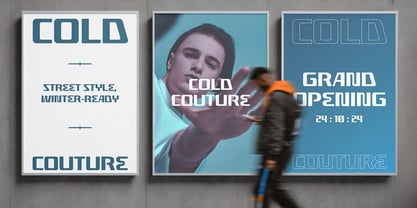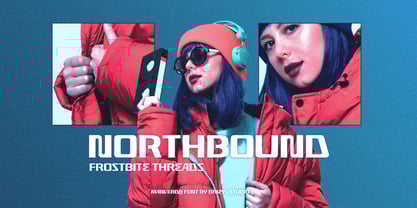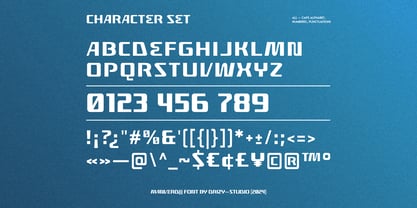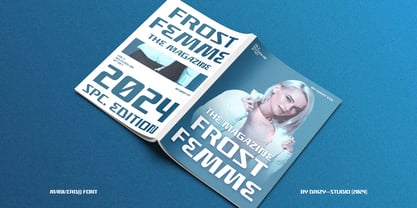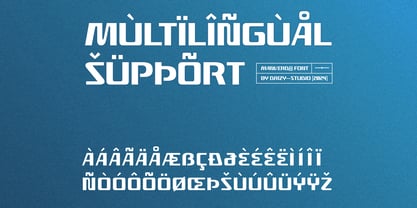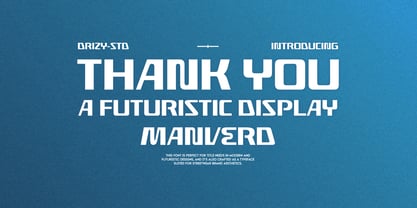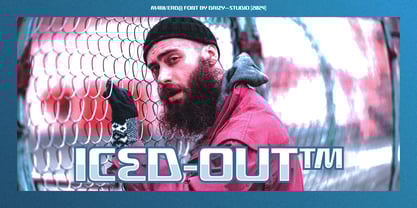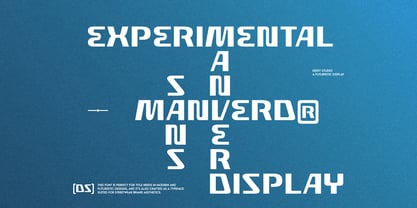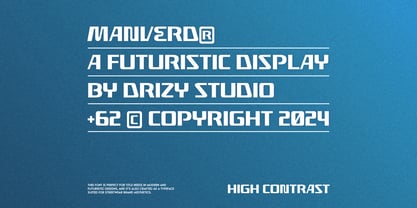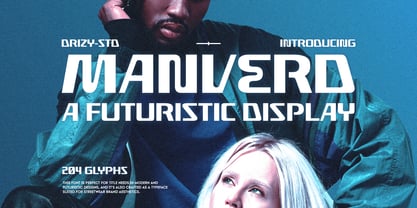
Manverd
by Drizy Font
The Manverd Font Family was designed by Panca Ahmadi Hasan and published by Drizy Font. Manverd contains 1 styles. More about this family
Manverd – Futuristic Display Font
Manverd is a cutting-edge typeface designed to embody the sleek, modern aesthetics of Winter Streetwear. With it’s sharp, geometric lines and bold, futuristic style, this font captures the essence of urban fashion during the colder months. Perfect for apparel branding, fashion editorials, or eye-catching social media posts, Manverd brings a fresh, avant-garde touch to your designs. Its versatility makes it ideal for headlines, logos, or any project that calls for a stylish, high-impact look. Step into the future of street fashion with Manverd, where innovation meets winter style.
Manverd features:
• Character Set (All Caps)
• Punctuation & Numbers
• Multilingual
Designers: Panca Ahmadi Hasan
Foundry: Drizy Font